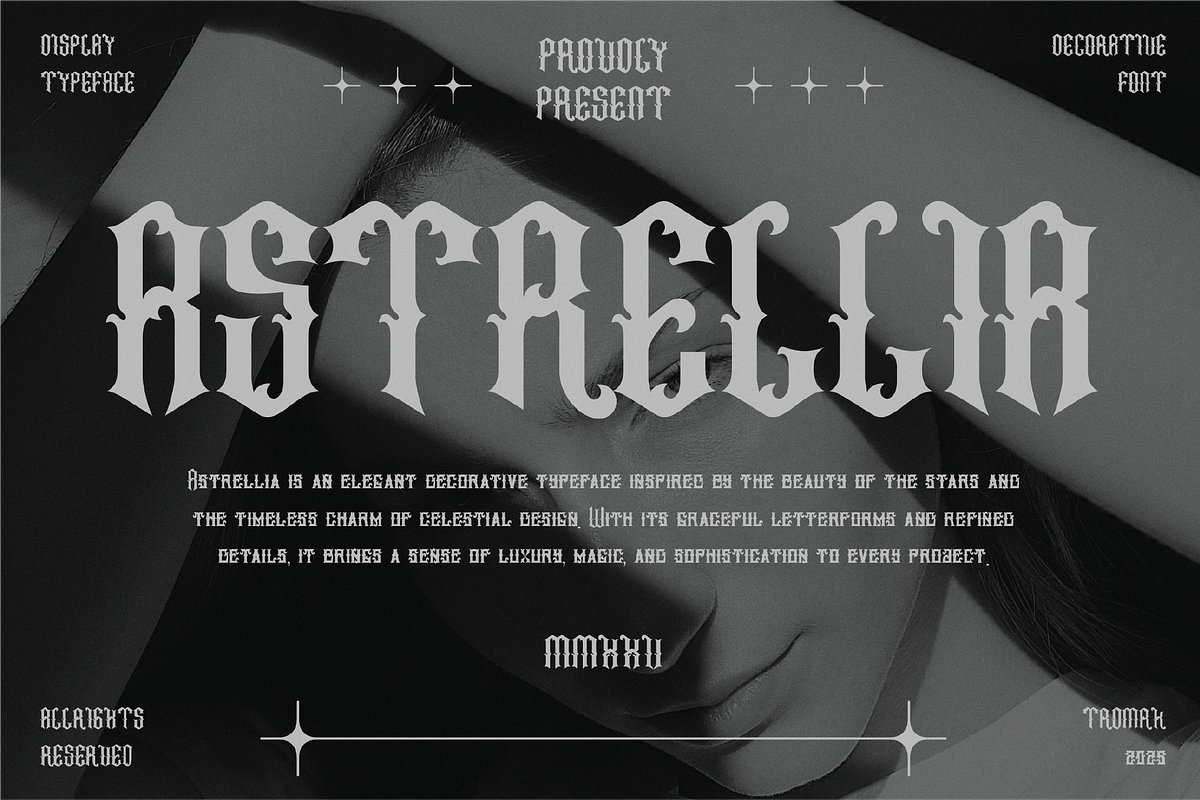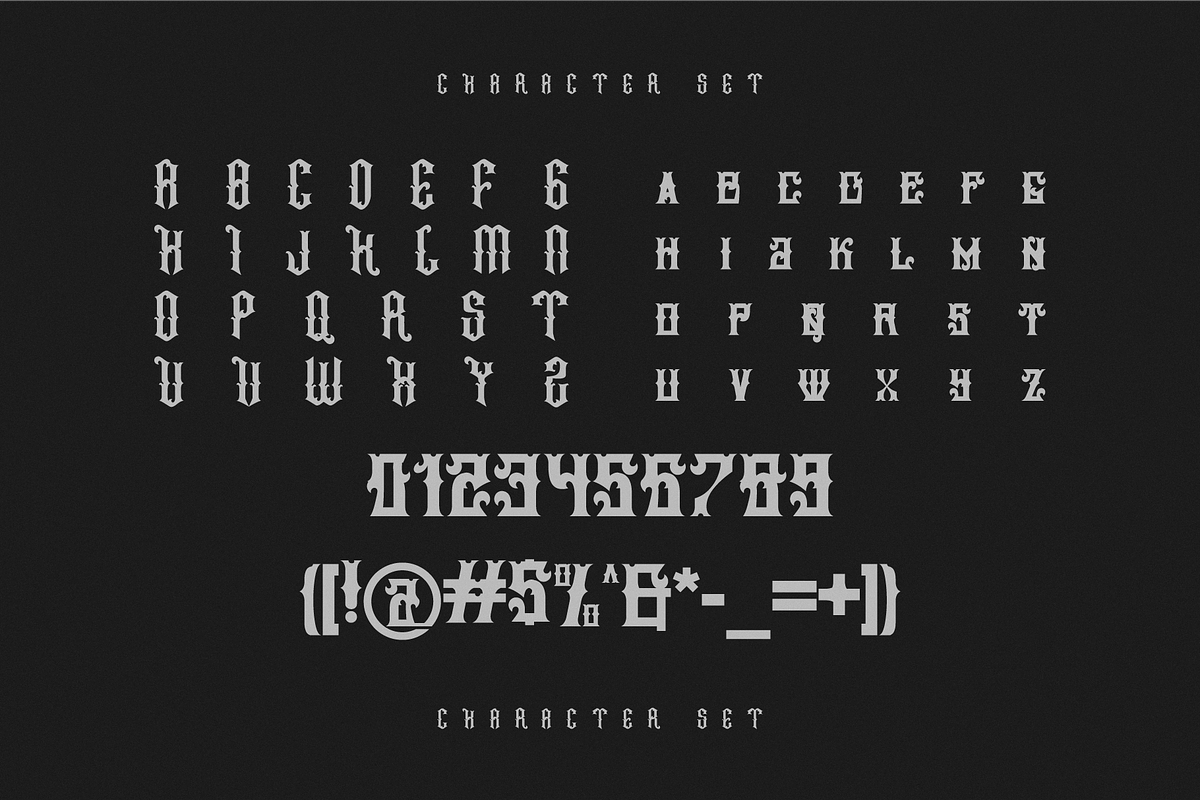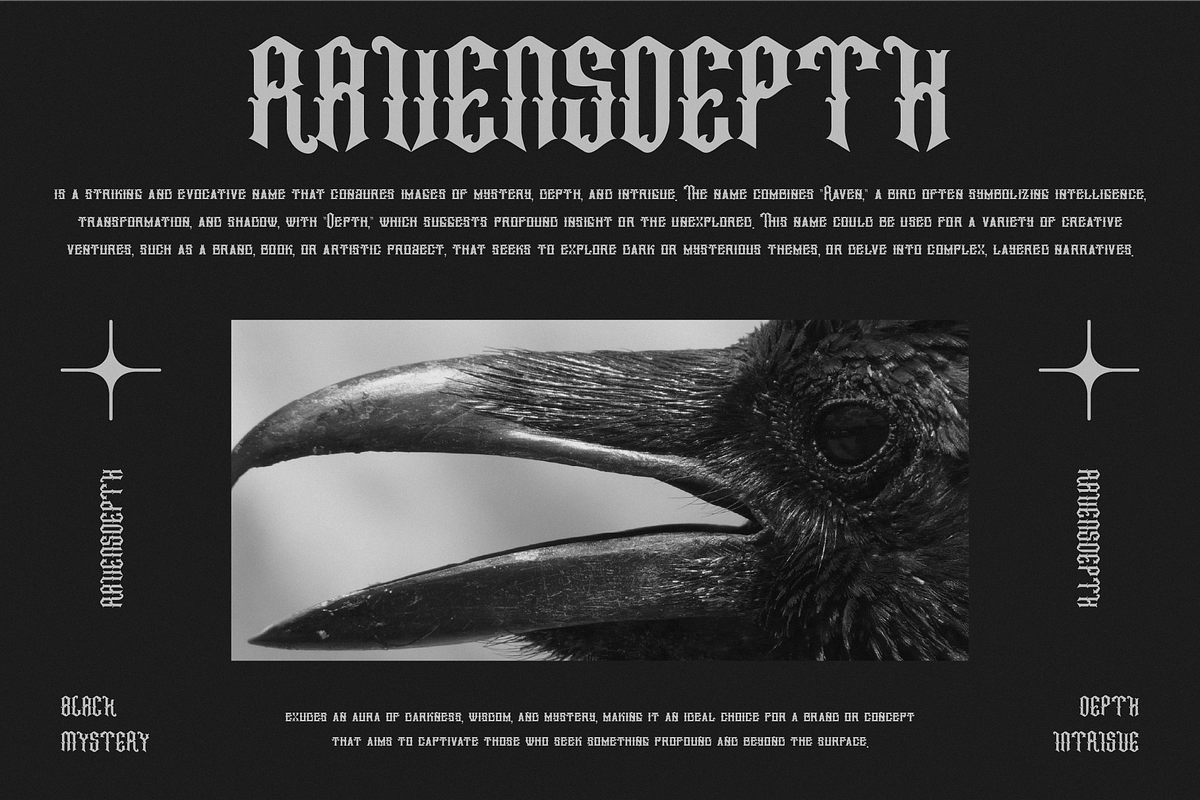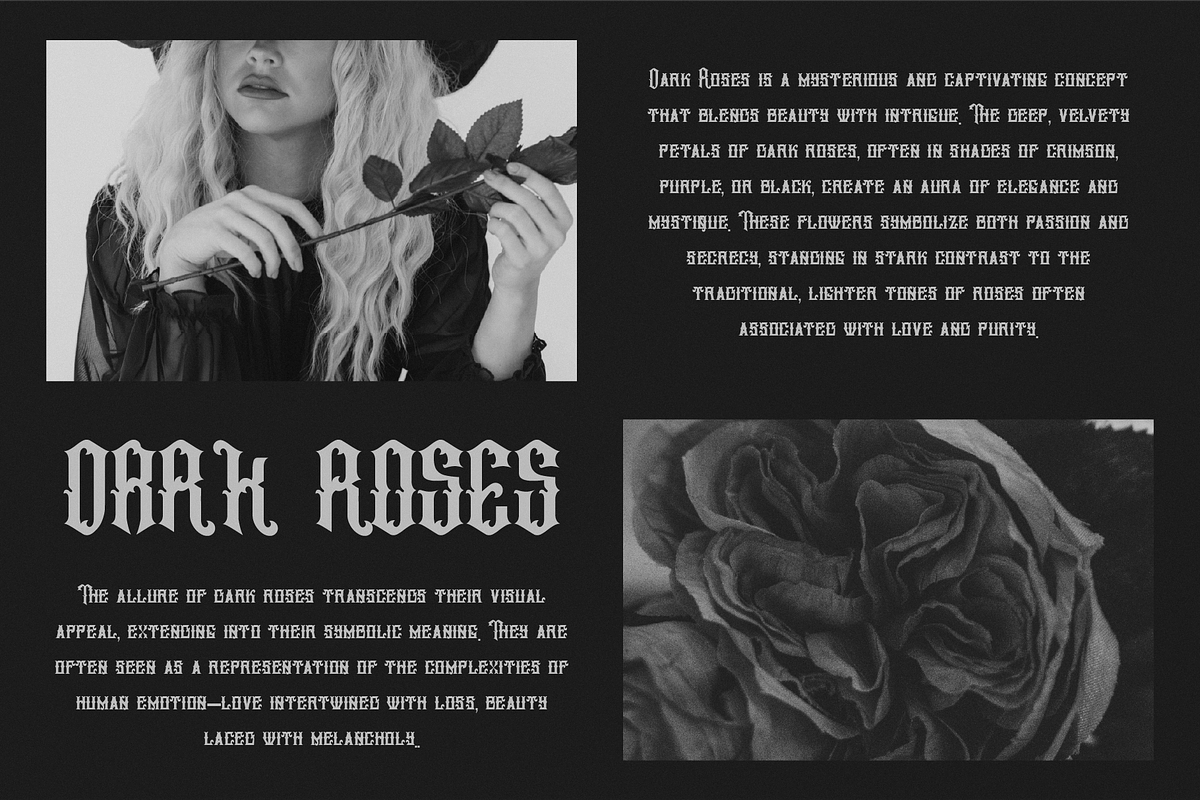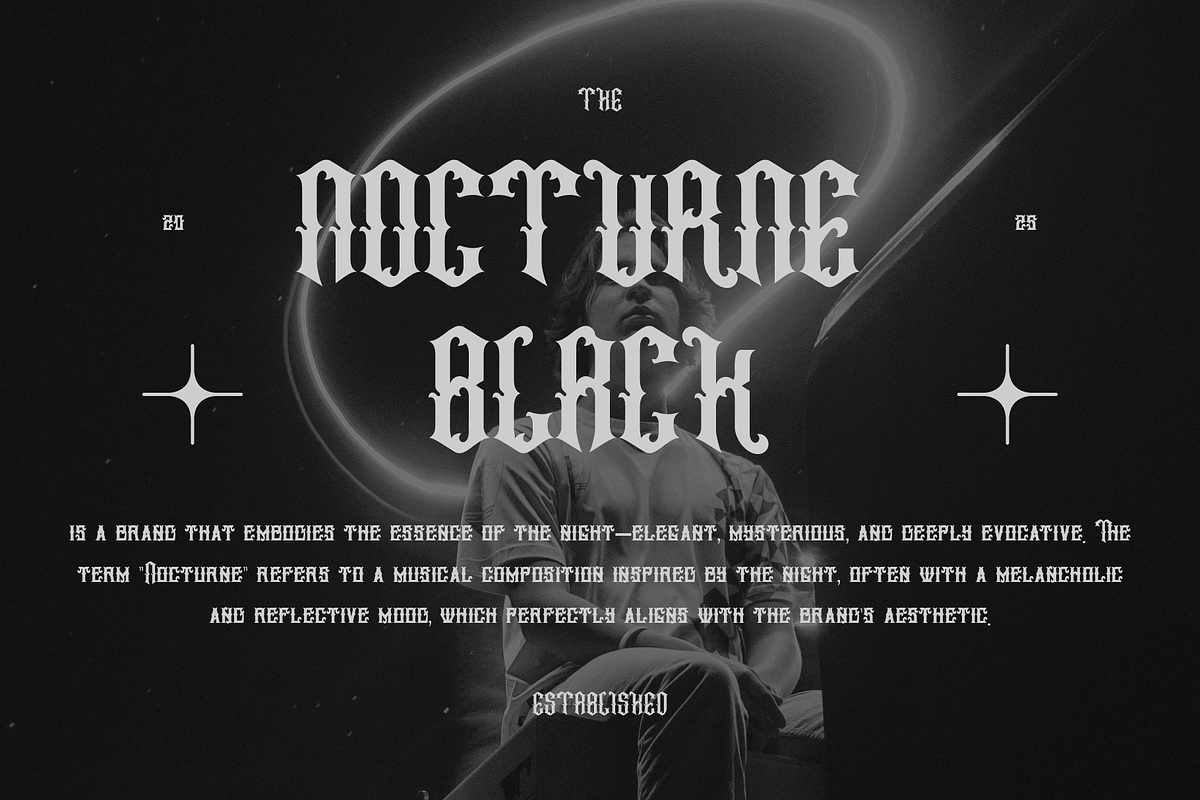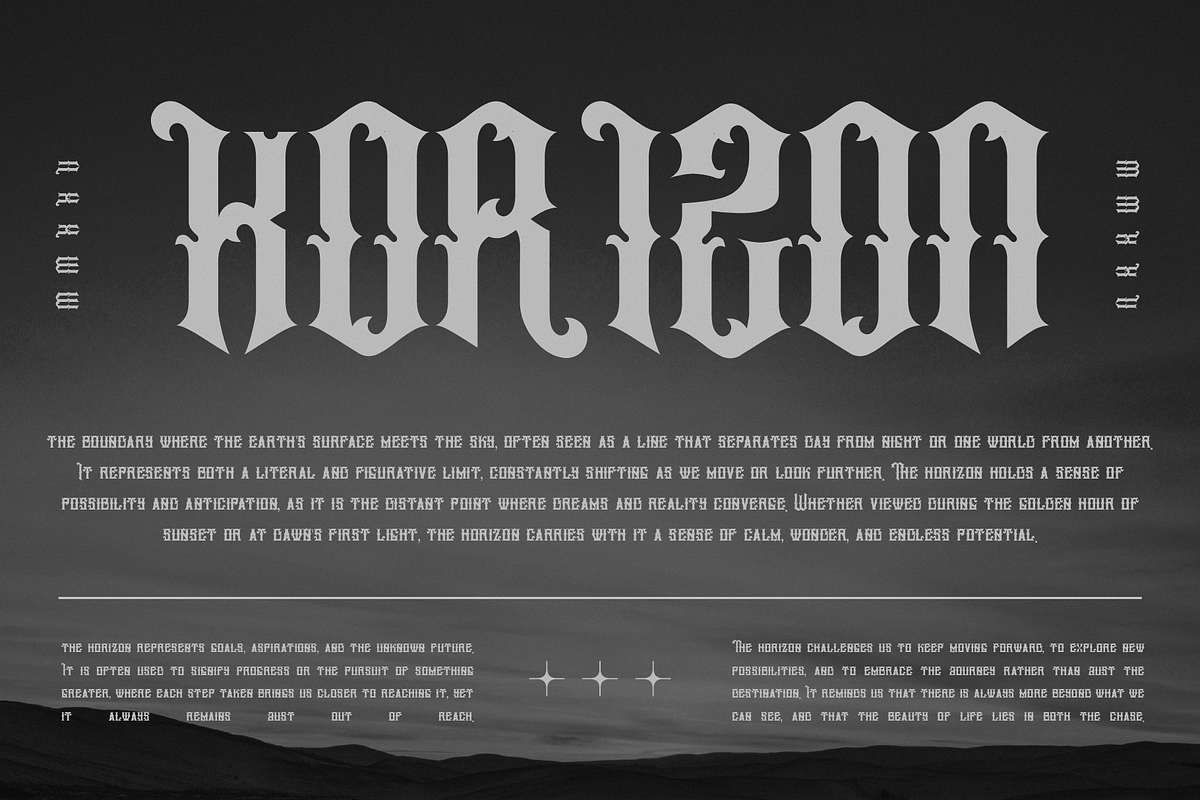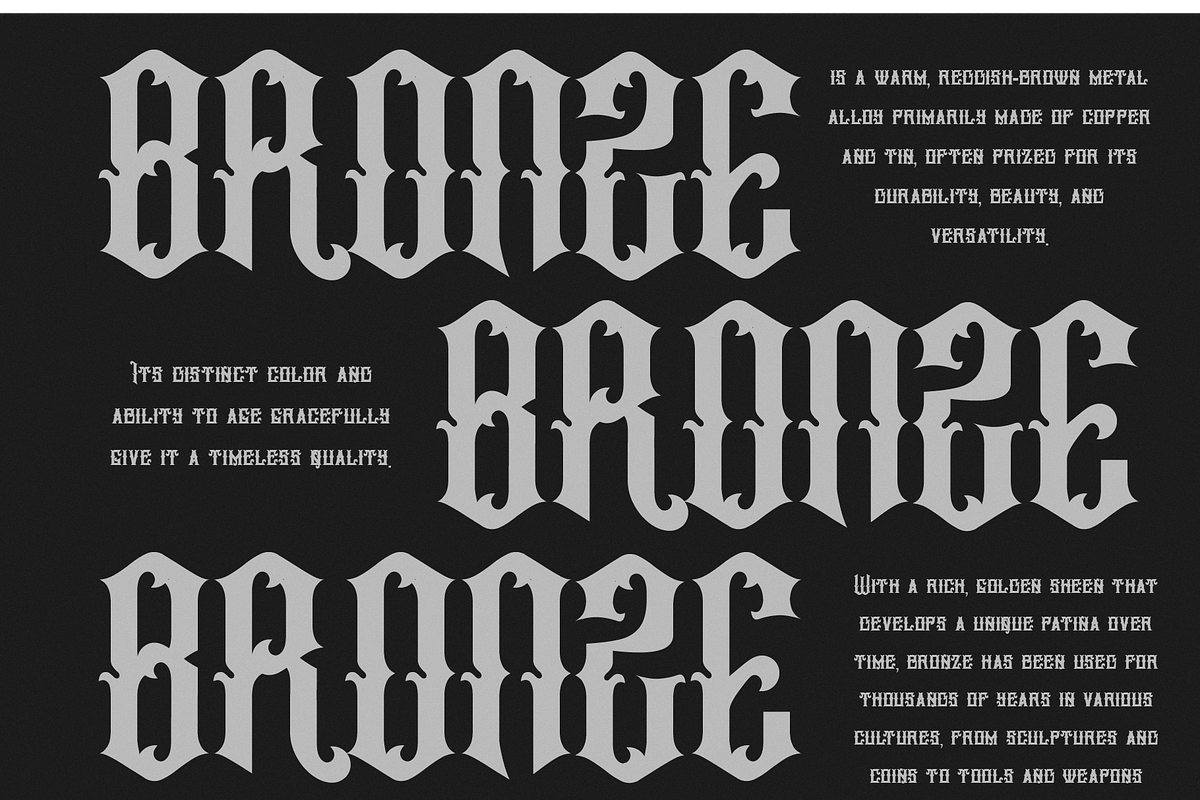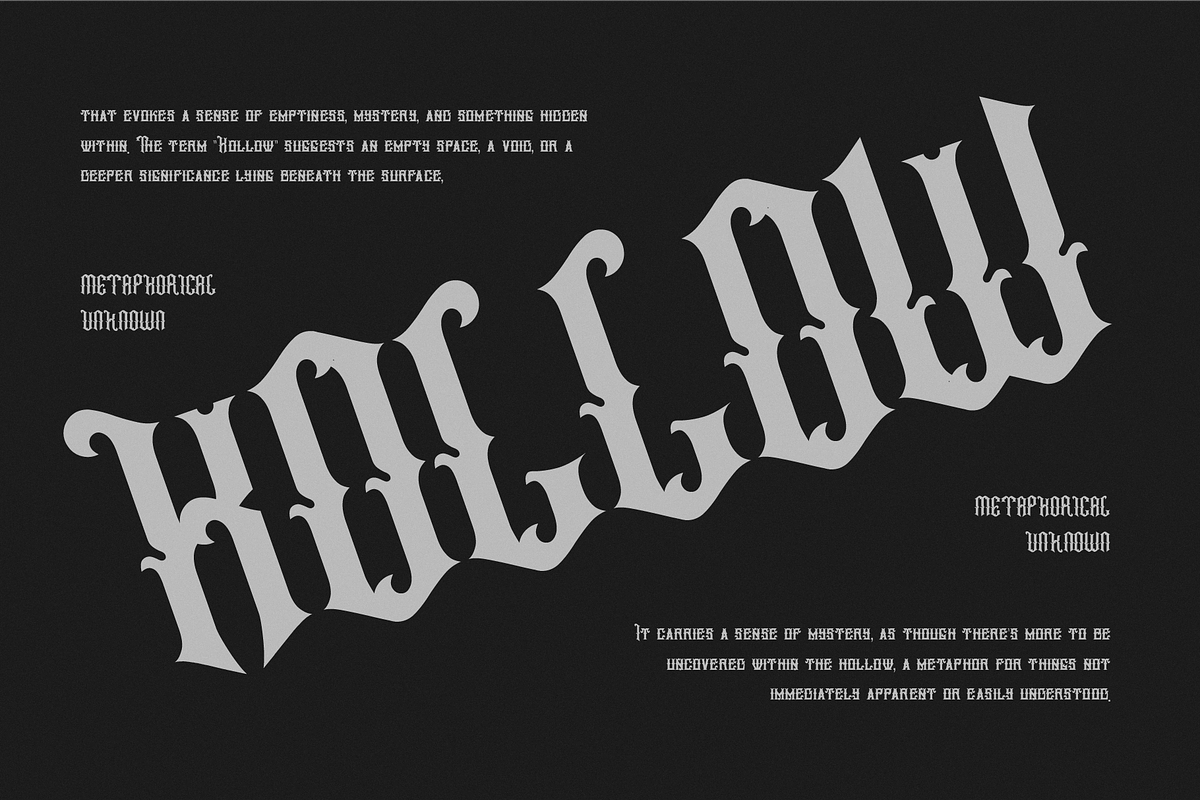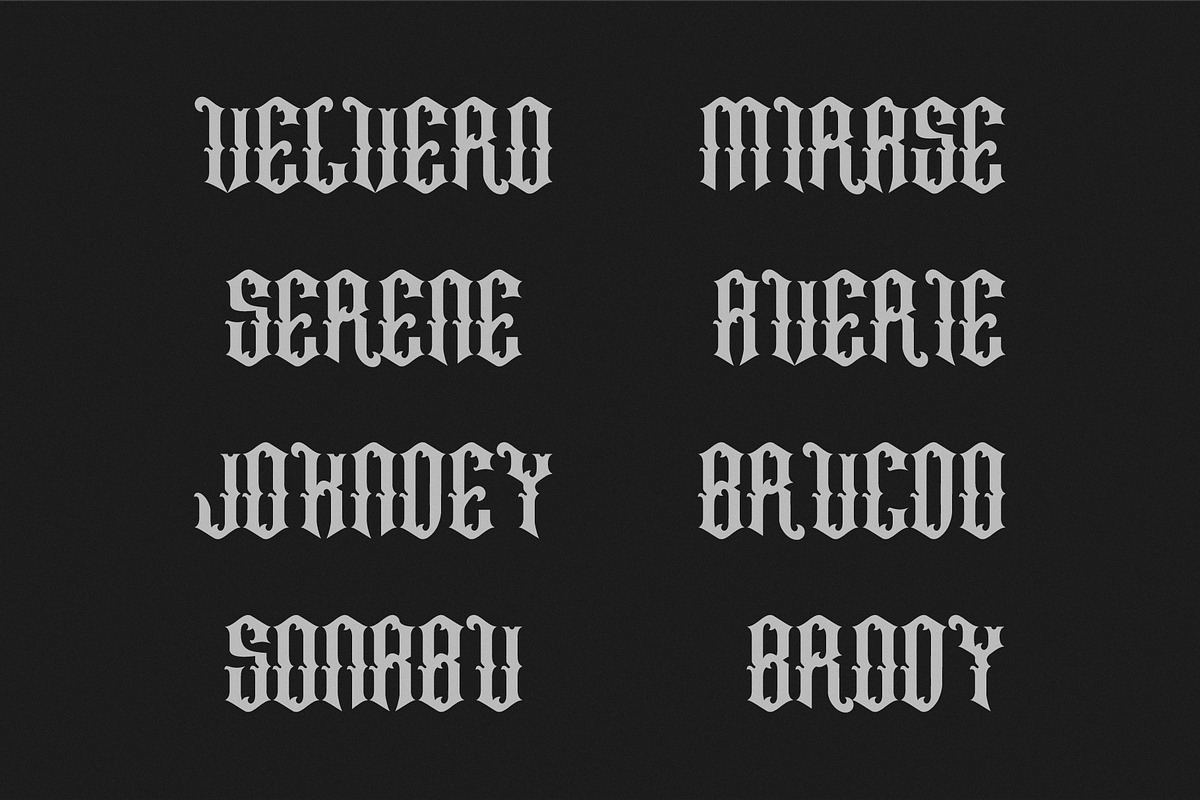
Astrellia - A Decorative Font
Astrellia is an elegant decorative typeface inspired by the beauty of the stars and celestial design. With graceful letterforms and refined details, it brings a sense of luxury, magic, and sophistication to every project.